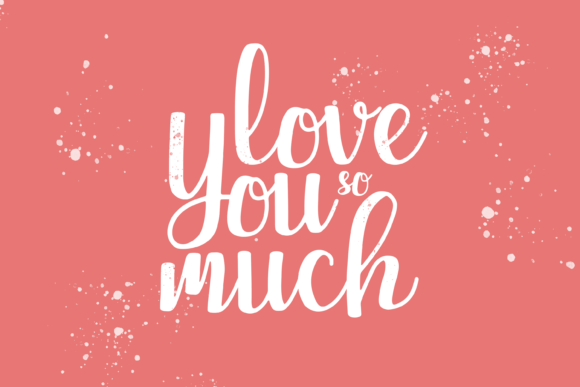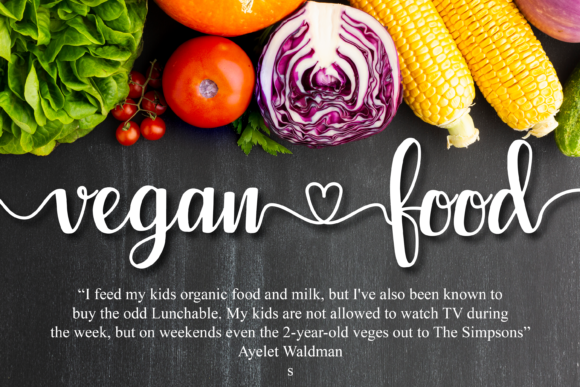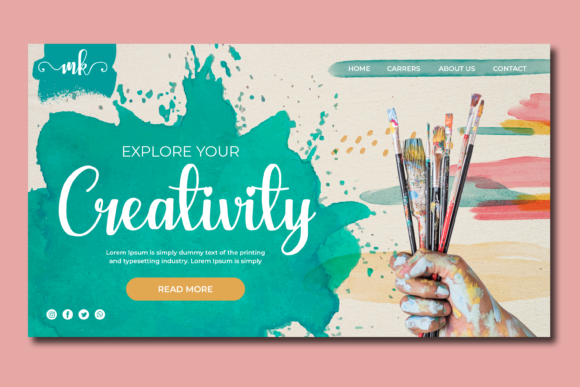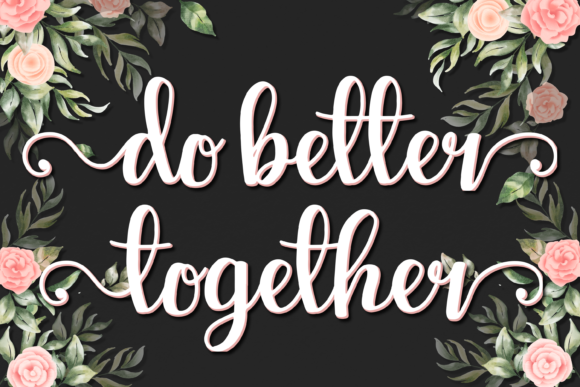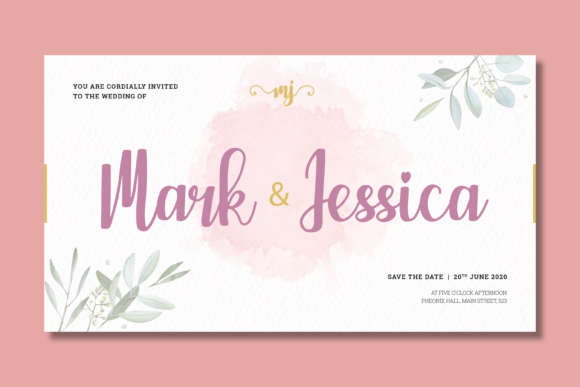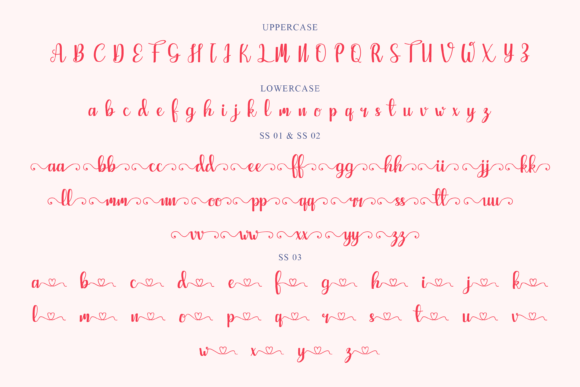
Introducing Castya Font: The Ultimate Choice for Feminine and Whimsical Designs
Are you a designer or crafter looking for a font that adds a touch of elegance and playfulness to your creations? Look no further than Castya Font, a lovely script font that combines calligraphy elements, whimsical swashes, and special heart-themed swashes to bring a feminine and detailed touch to your designs.
What is Castya Font?
Castya Font is a beautifully crafted script font that is perfect for designers and crafters who want to add a touch of sophistication and whimsy to their work. With its calligraphy elements and flowing lines, Castya Font is ideal for creating elegant and eye-catching designs that are sure to stand out.
Key Features of Castya Font
• Calligraphy Elements: Castya Font features beautiful calligraphy elements that give it a unique and elegant feel.
• Whimsical Swashes: The font comes with a range of whimsical swashes that can be used to add a playful touch to your designs.
• Special Heart Swashes: Castya Font also includes special swashes with hearts, perfect for adding a romantic and feminine touch to your creations.
• Feminine and Detailed: The font’s design is carefully crafted to provide a feminine and detailed look that is perfect for a range of design projects.
Uses of Castya Font
Castya Font is a versatile font that can be used for a wide range of design projects, including:
• Wedding Invitations: The font’s elegant and whimsical design makes it perfect for wedding invitations and other wedding-related stationery.
• Branding and Packaging: Castya Font can be used to create beautiful and eye-catching branding and packaging designs that are sure to stand out.
• Social Media Graphics: The font’s playful and feminine design makes it ideal for social media graphics, such as Instagram posts and Facebook covers.
• Crafting and Scrapbooking: Castya Font is also perfect for crafters and scrapbookers who want to add a touch of elegance and whimsy to their projects.
Why Choose Castya Font?
There are many reasons why Castya Font is the perfect choice for designers and crafters. Here are just a few:
• Unique and Elegant Design: Castya Font has a unique and elegant design that is sure to make your designs stand out.
• High-Quality: The font is carefully crafted to provide a high-quality design that is perfect for professional designers and crafters.
Tips for Using Castya Font
Here are a few tips for using Castya Font in your designs:
• Use it for Headings: Castya Font is perfect for headings and titles, where its elegant and whimsical design can really shine.
• Experiment with Swashes: The font’s swashes are a great way to add a playful touch to your designs. Experiment with different swashes to find the one that works best for your project.
• Pair it with Other Fonts: Castya Font can be paired with other fonts to create a unique and interesting design. Try pairing it with a bold sans-serif font for a striking contrast.
Castya Font is a beautiful and versatile script font that is perfect for designers and crafters who want to add a touch of elegance and whimsy to their creations. With its calligraphy elements, whimsical swashes, and special heart-themed swashes, Castya Font is the ultimate choice for feminine and detailed designs. Whether you’re creating wedding invitations, branding and packaging, or social media graphics, Castya Font is sure to make your designs stand out.